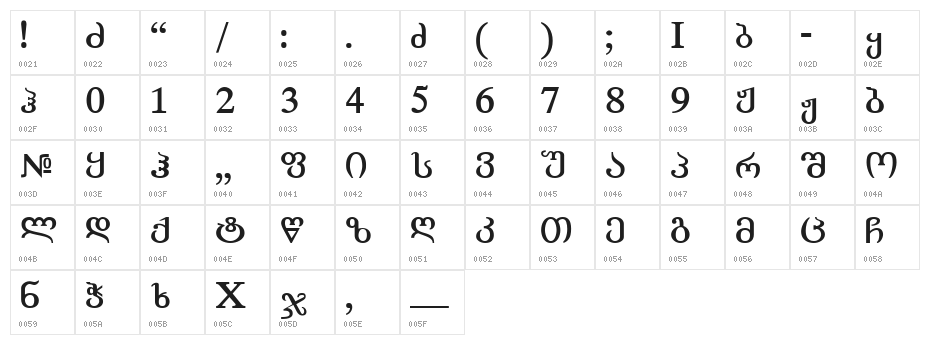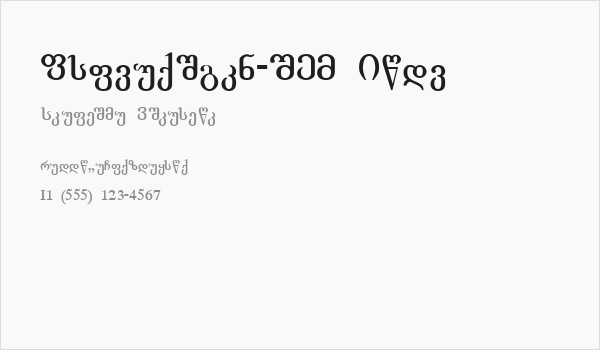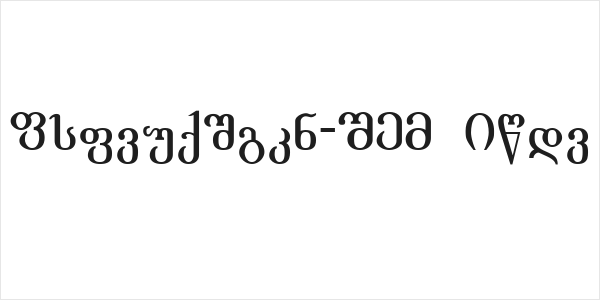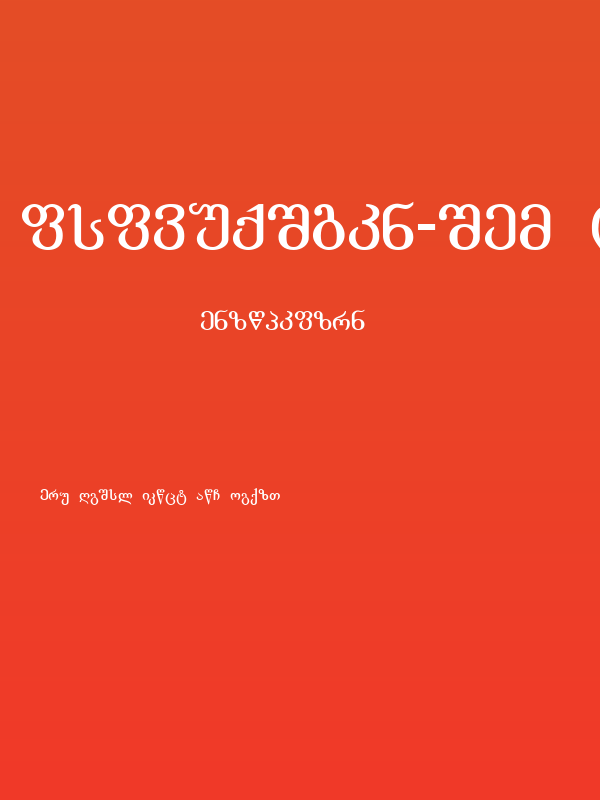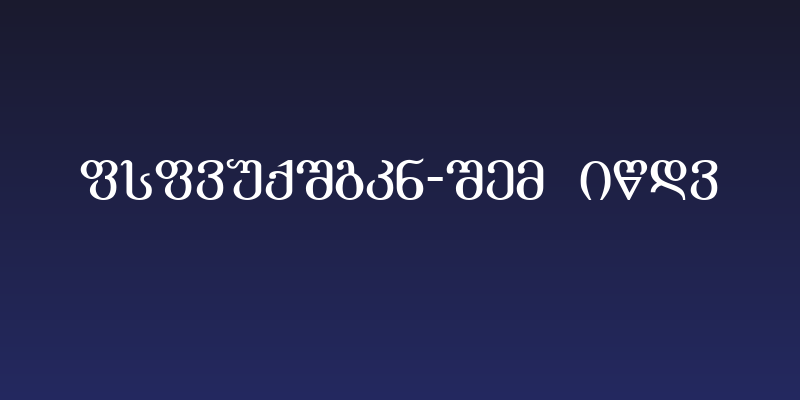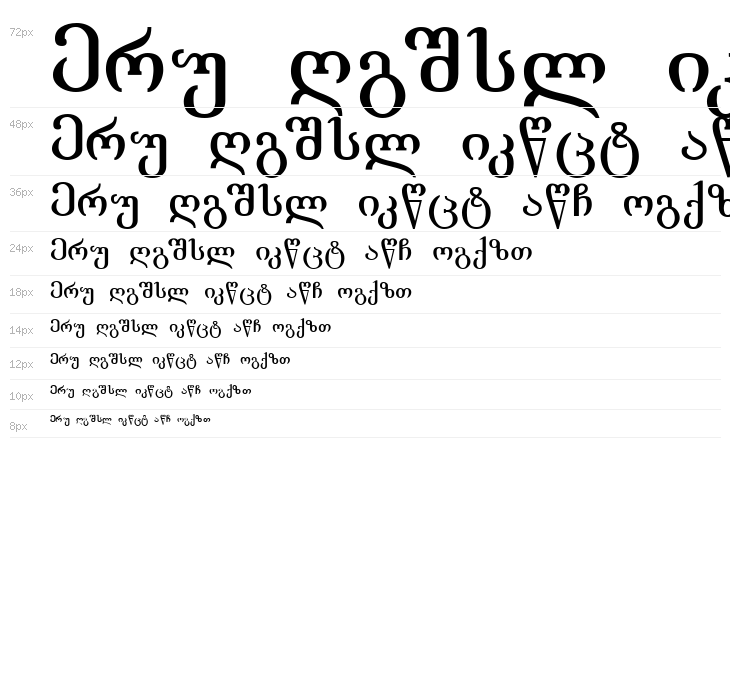
Academiury-ITV Bold Font
| Vorgeschlagene Projekte | Ideal for branding, editorial design, posters, and any project requiring a bold and sophisticated typeface. |